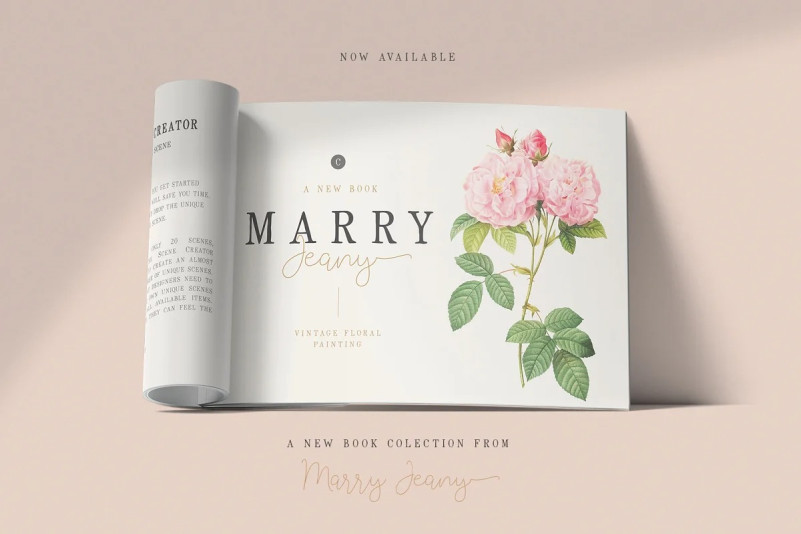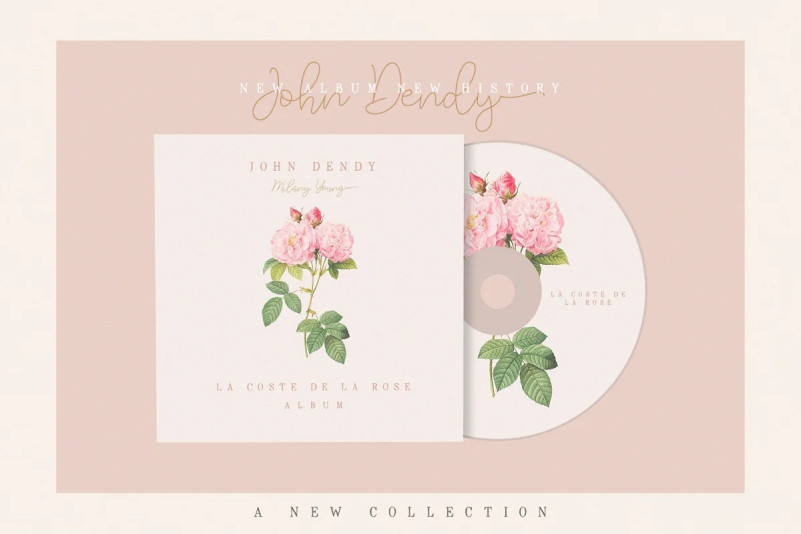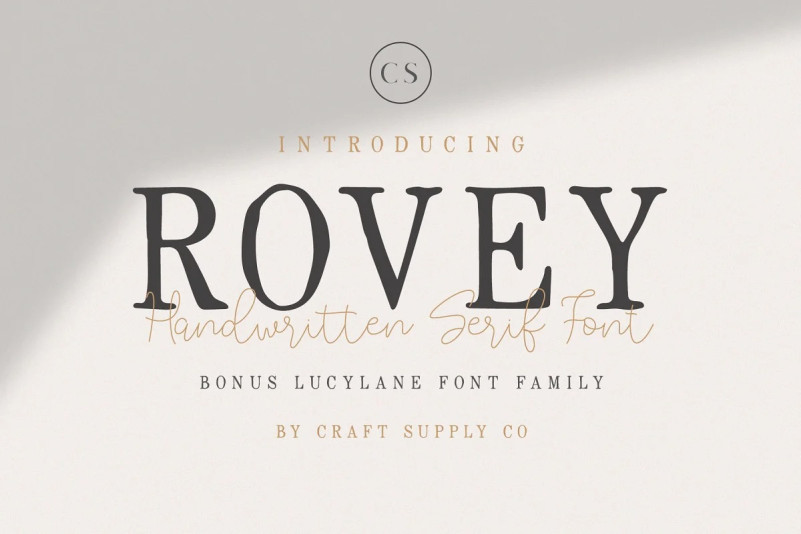
Rovey Font
Rovey Font – Handwritten Serif Font + Bonus. It can be used to create almost all types of design projects like print materials. Just use your imagination and some graphic design set in Extras, your project will become more alive and look great than ever with Rovey – Handwritten Serif Font + Bonus.
You want to make a greeting card or a package design, or even a brand identity, craft design, any DIY project, book title, wedding font, pop vintage design, retro design or any purpose to make your art / design project look pretty and trendy? Feel free to play with this fonts!